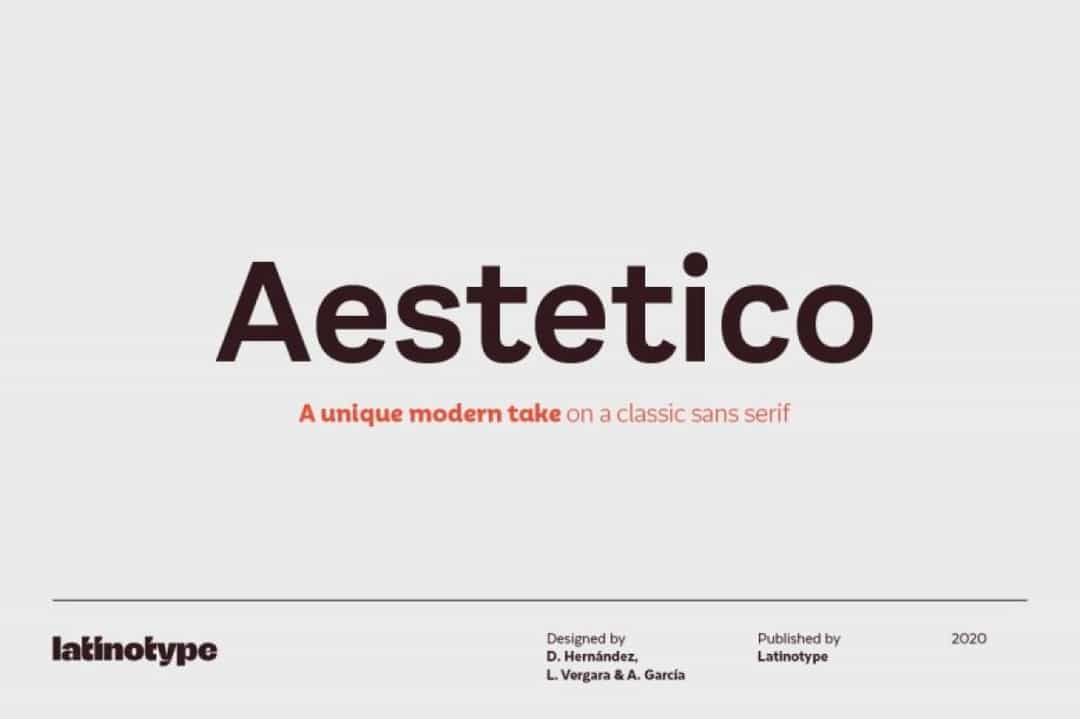
Latinotype’s Aestetico font family can be best described as a contemporary sans serif font family with 54 unique styles that pay homage to traditional sans serif typefaces while adding their own modern touch. Each style honors classic sans serifs while adding contemporary flare. Aestetico explores how curves and shapes of letters influence their appearance, with informal styles often featuring rounder and more whimsical letters while formal styles use more classic sans serif forms.